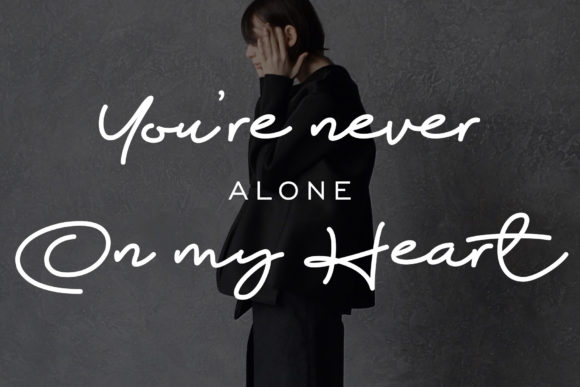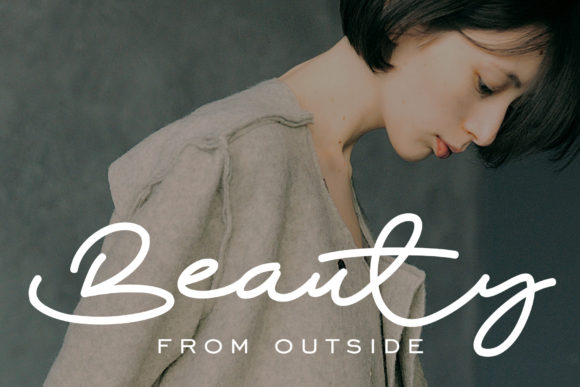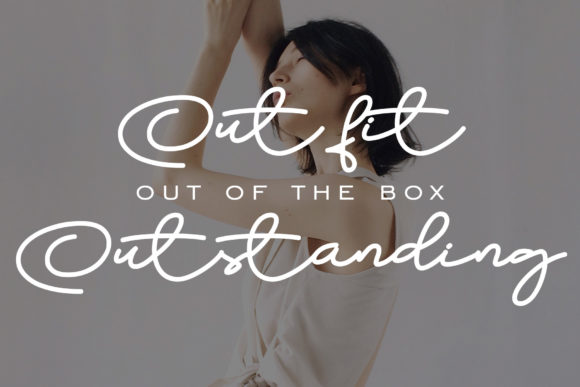
Danke Linda Font: The Ultimate Guide to this Fashionable and Quirky Handwriting Font
Are you a designer or crafter looking for a unique and stylish font to elevate your creative projects? Look no further than Danke Linda Font! This fashionable and quirky handwriting font has been making waves in the design community, and for good reason. In this comprehensive guide, we’ll dive into the world of Danke Linda Font, exploring its features, uses, and benefits.
What is Danke Linda Font?
Danke Linda Font is a handwriting font that exudes a sense of playfulness and sophistication. Its quirky and fashionable design makes it perfect for a wide range of creative projects, from branding and advertising to crafting and DIY tutorials. The font’s unique character and charm are sure to capture the attention of your audience and leave a lasting impression.
Key Features of Danke Linda Font
- Handwritten style: Danke Linda Font boasts a beautiful, handwritten style that adds a personal touch to any project.
- Quirky and fashionable: The font’s quirky and fashionable design makes it perfect for creative projects that require a unique and stylish touch.
- Easy to read: Despite its playful design, Danke Linda Font is easy to read and understand, making it perfect for body text and headings.
- Versatile: This font can be used for a wide range of projects, from digital designs to print materials.
Uses of Danke Linda Font
Danke Linda Font is a versatile font that can be used for a variety of creative projects, including:
- Branding and advertising: Use Danke Linda Font to create eye-catching logos, business cards, and ad campaigns that stand out from the crowd.
- Crafting and DIY tutorials: Add a personal touch to your crafting and DIY tutorials with Danke Linda Font’s playful and handwritten style.
- Digital designs: Use Danke Linda Font to create stunning digital designs, including social media graphics, blog posts, and website headers.
- Print materials: Danke Linda Font is perfect for print materials, such as brochures, flyers, and posters.
Benefits of Using Danke Linda Font
So why choose Danke Linda Font for your creative projects? Here are just a few benefits:
- Unique and stylish: Danke Linda Font adds a unique and stylish touch to any project, setting it apart from more traditional fonts.
- Time-saving: With Danke Linda Font, you can create stunning designs in no time, saving you time and effort.
Tips for Using Danke Linda Font
To get the most out of Danke Linda Font, here are a few tips:
- Use it sparingly: While Danke Linda Font is a beautiful font, it’s best used sparingly to avoid overwhelming your design.
- Pair it with other fonts: Experiment with pairing Danke Linda Font with other fonts to create a unique and stylish design.
- Adjust the size and color: Play around with the size and color of Danke Linda Font to create a design that’s tailored to your project.
| Author | aldedesign |
Danke Linda Font is a fashionable and quirky handwriting font that’s perfect for designers and crafters looking to add a unique touch to their creative projects. With its easy-to-use design, versatility, and affordability, it’s no wonder that Danke Linda Font has become a popular choice in the design community. Whether you’re working on a branding campaign, crafting tutorial, or digital design, Danke Linda Font is sure to elevate your project and leave a lasting impression.